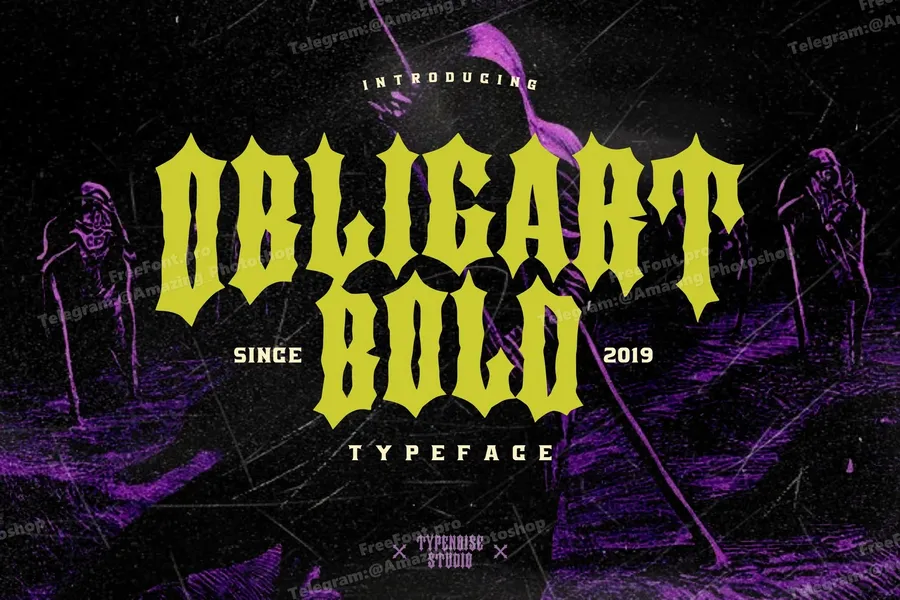
Obligart Bold is a typeface inspired in tattoo letters, chicano culture, urban street art. It works well with normal size text, but it works even better for large displays, short words, or even just to incorporate a few or single characters in a design. Suitable for many creative products & tattoo designs, like posters, logo, signage, headlines, etc.